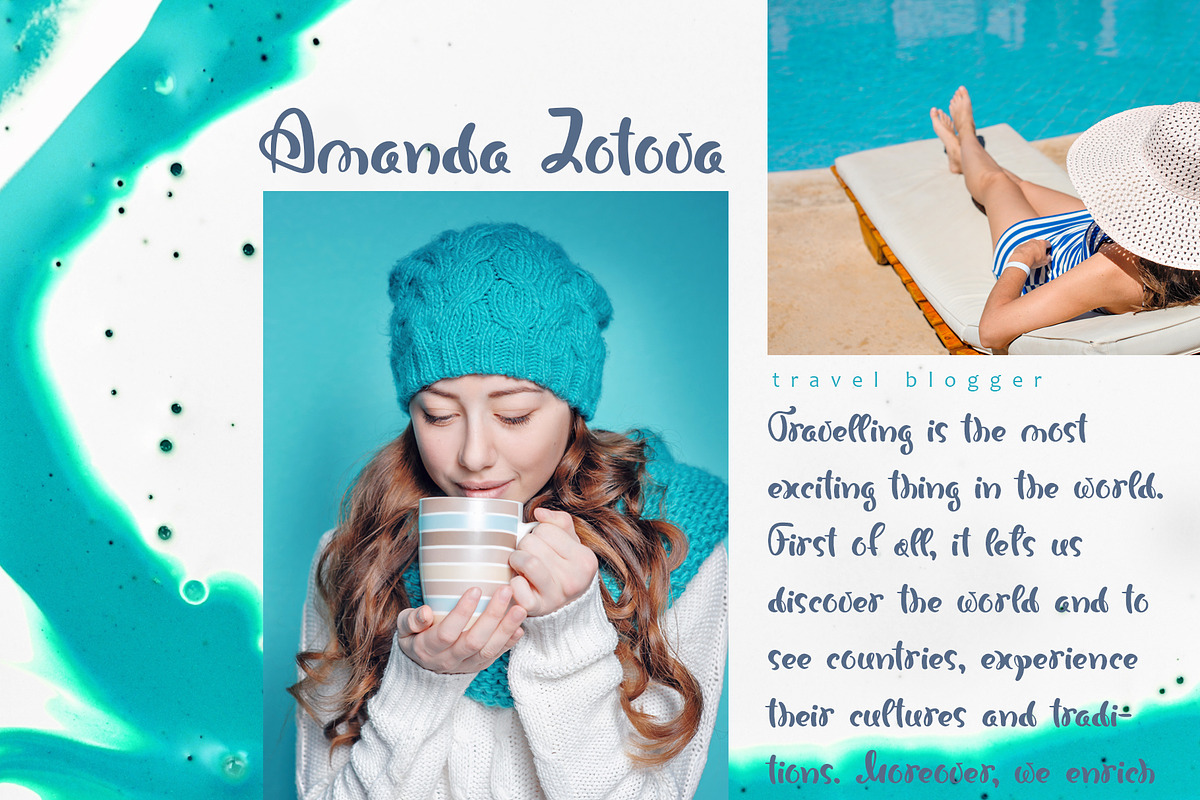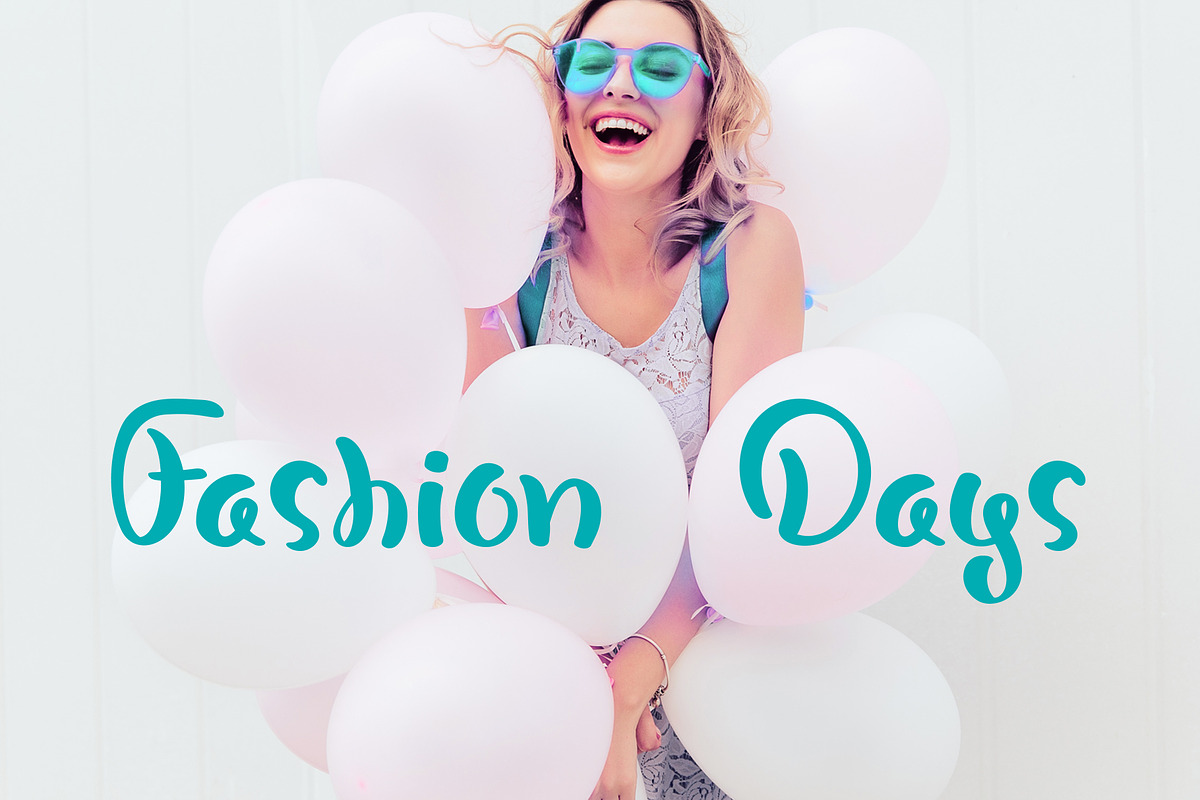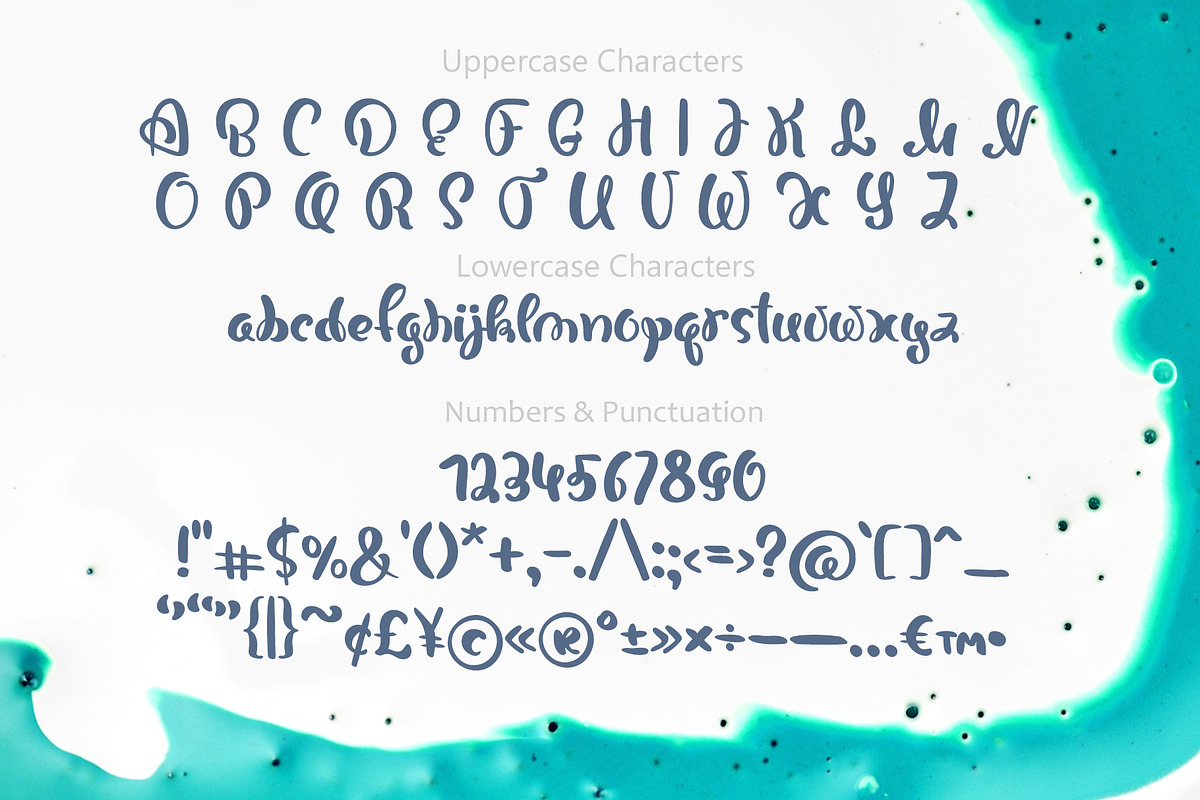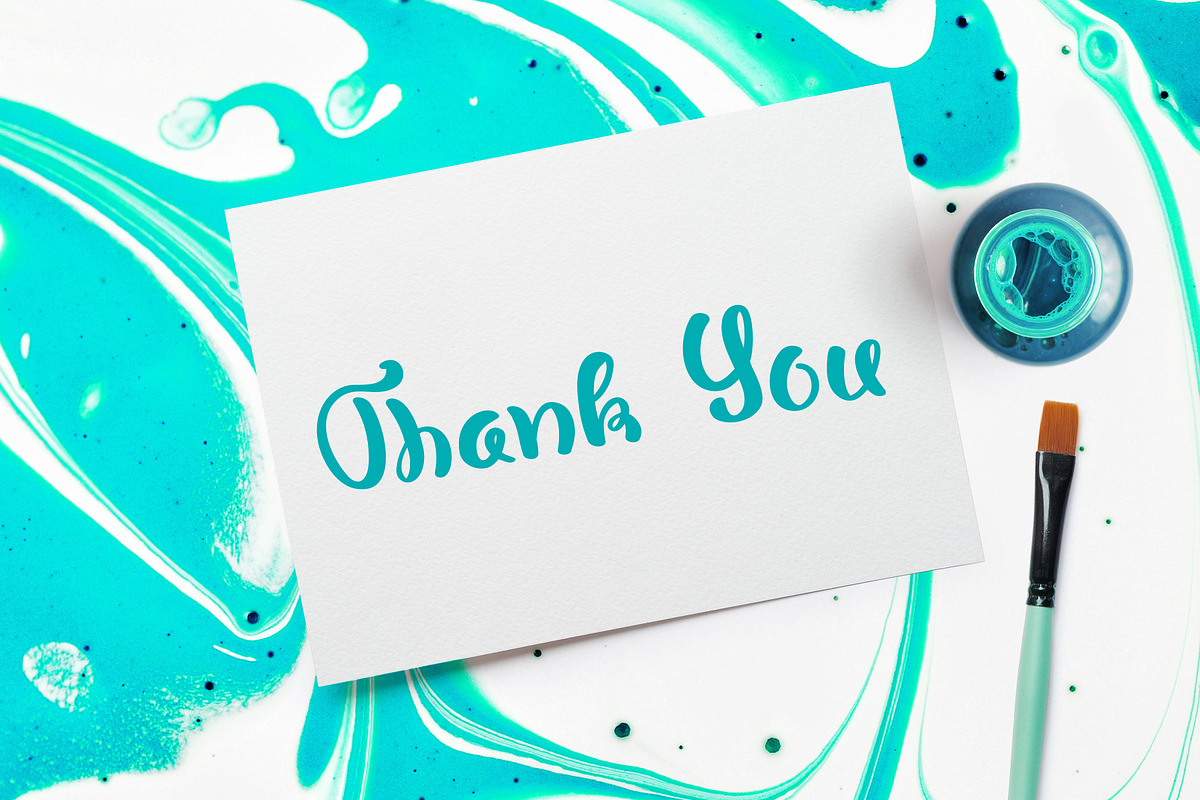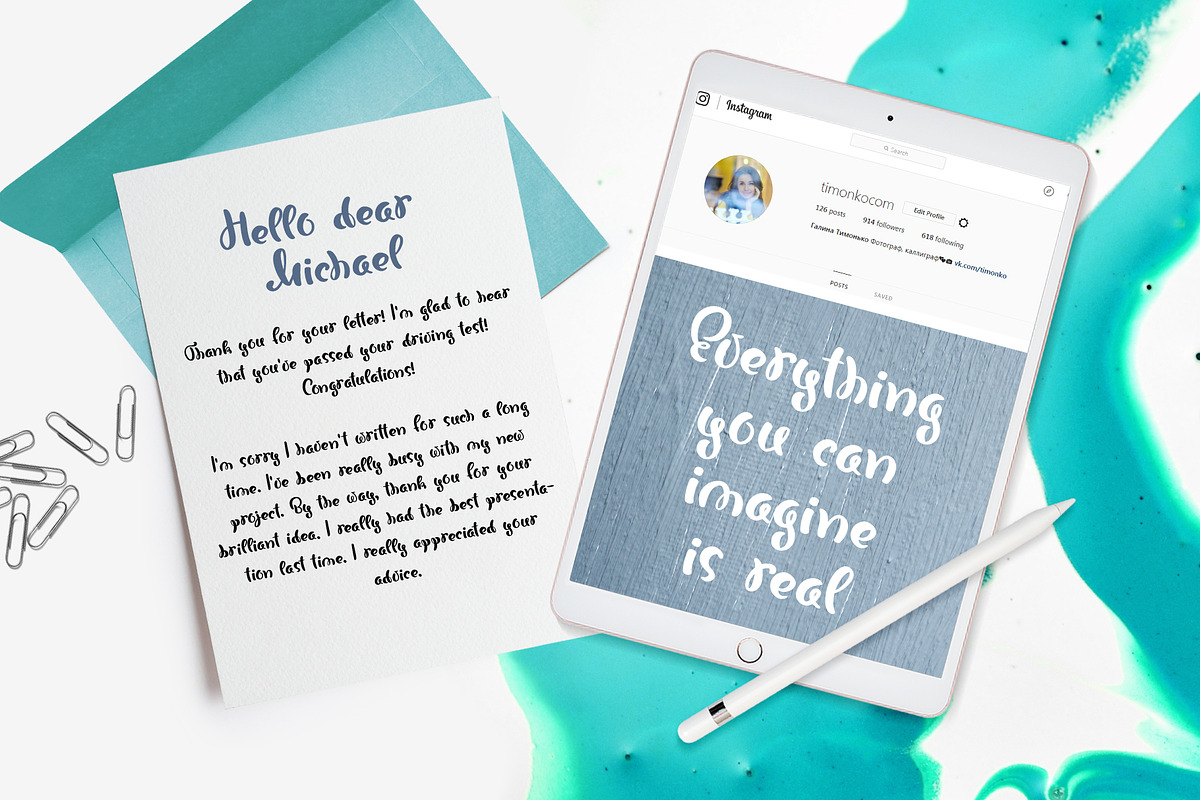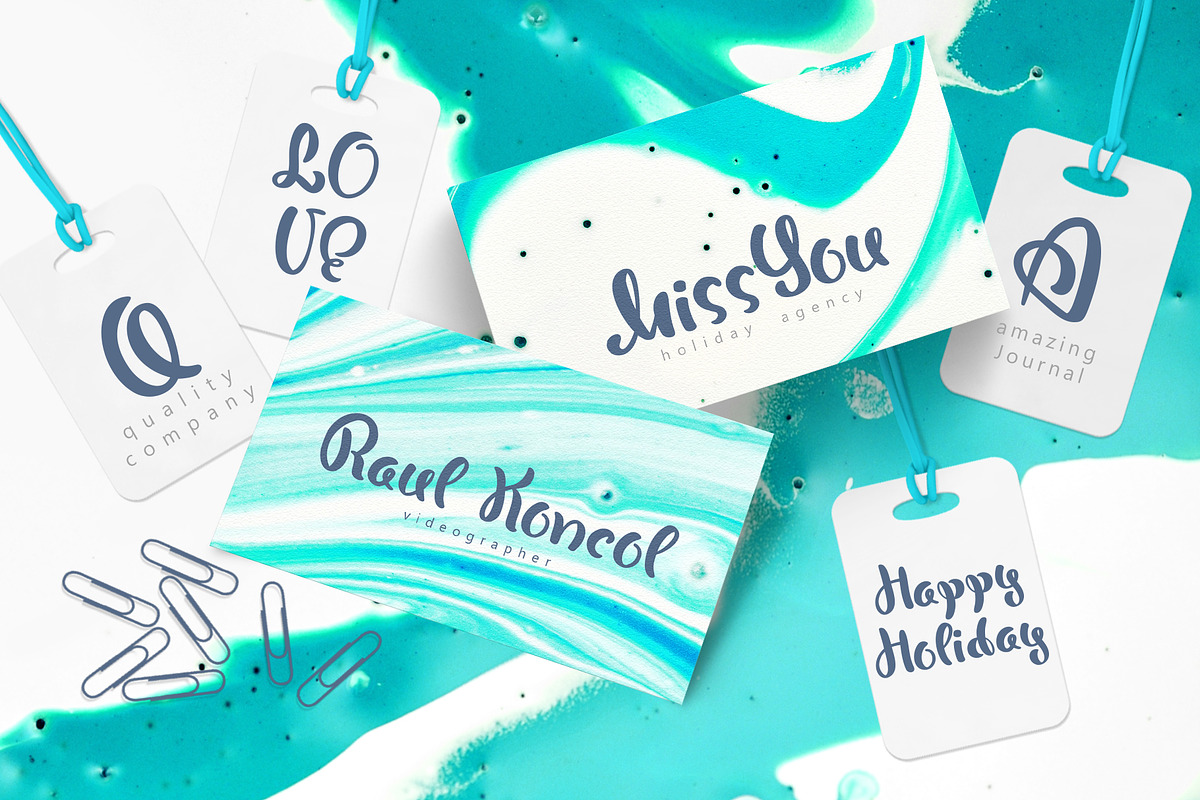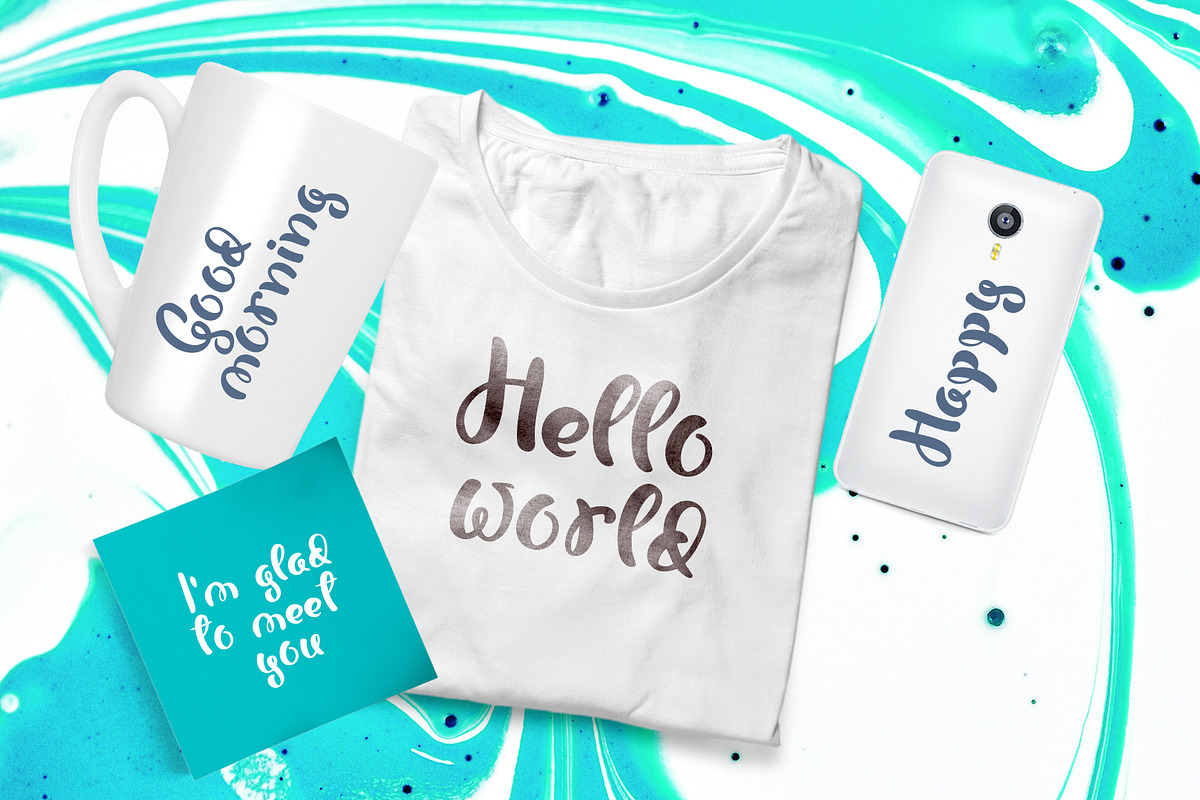
Bonjour Hand Drawn Font
Bonjour Hand Drawn Font includes unique flourishes swirl letters that give romantic and love for wedding holiday greeting cards, invitations, etc. Thin, elegant calligraphic lines give freshness to your handmade design.
Some of letters have alternative. The choice of alternative letters is possible in Photoshop and Illustrator CC and other programs that support alternatives.
Decorate your albums, wedding and holiday greeting cards - Merry Christmas and Happy New Year, Birthday, Valentine's Day, Mother's Day other holidays), logos, gift shops, tag, social media (Pinterest, Instagram, Facebook, etc), internet shops presentation.
Bonjour Hand Drawn Font by Happy Letters fits naturally into Branding, posters, packaging, typography.